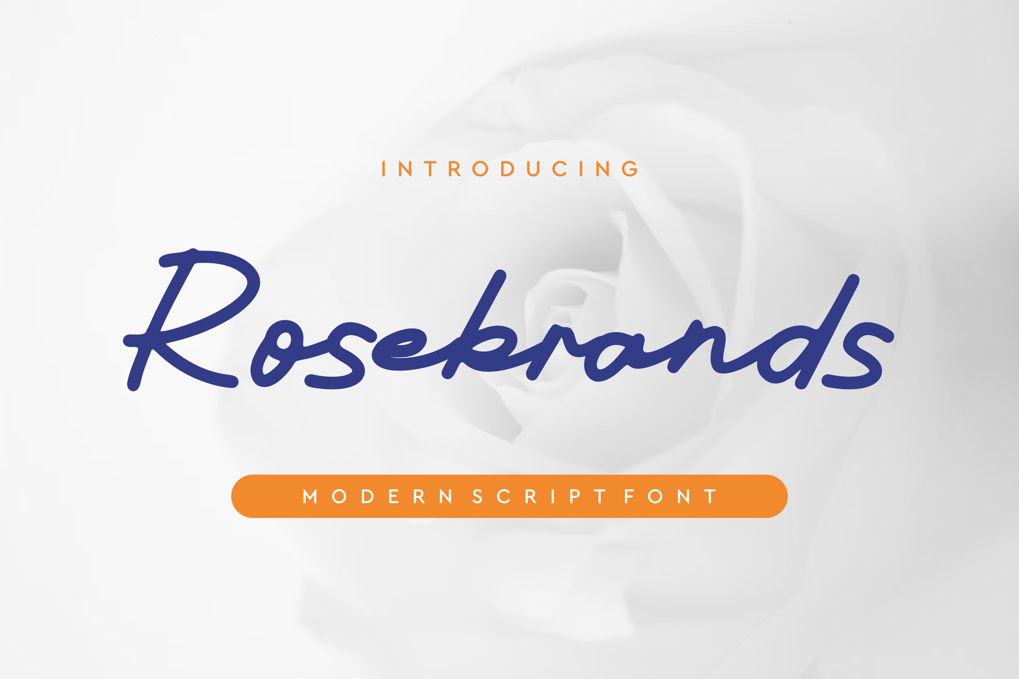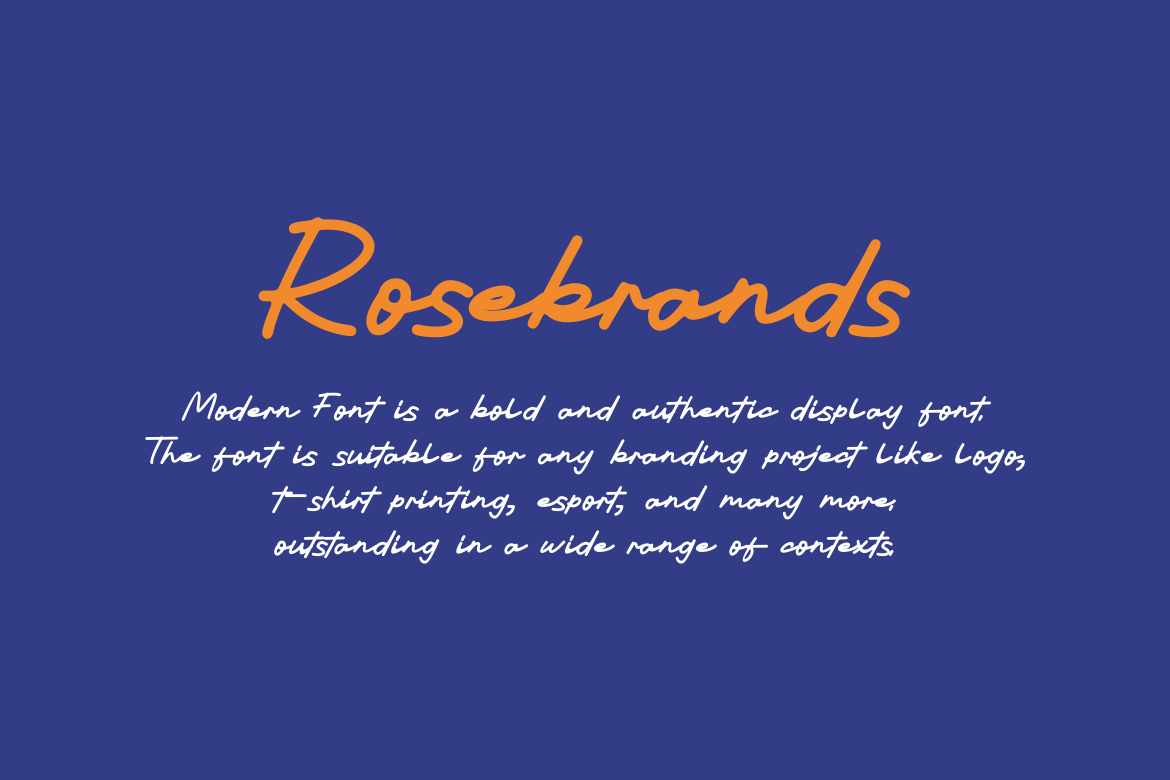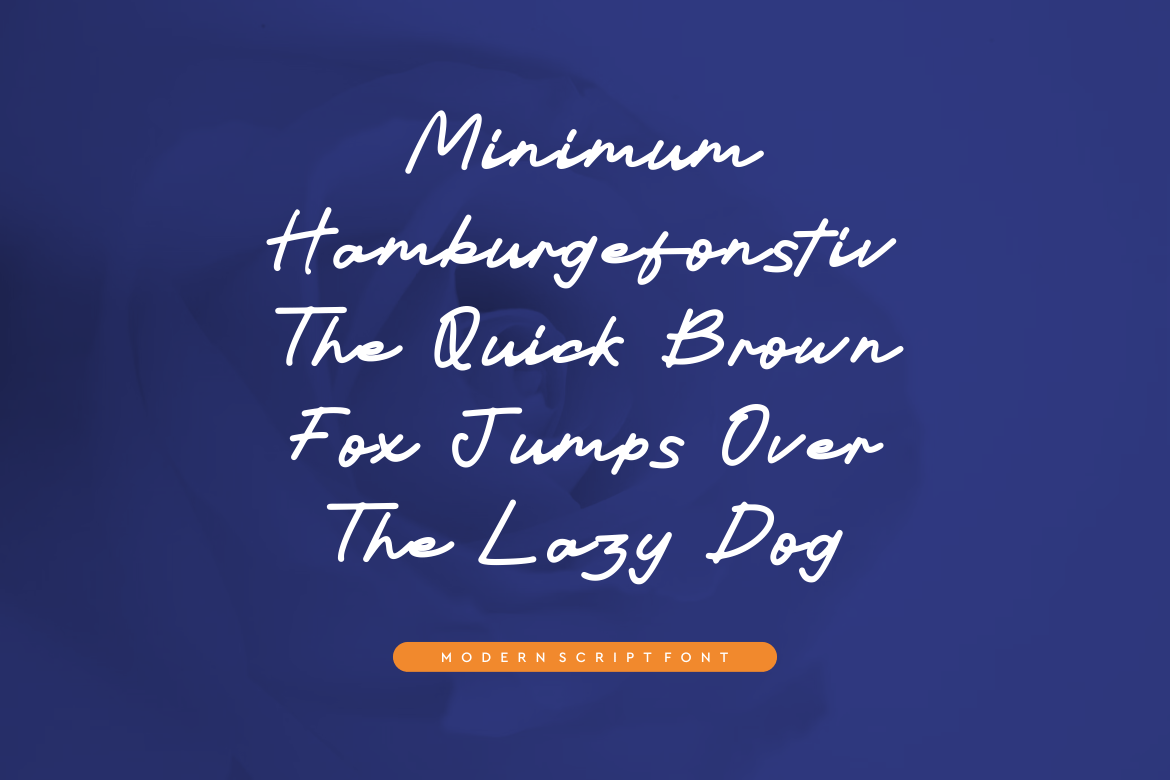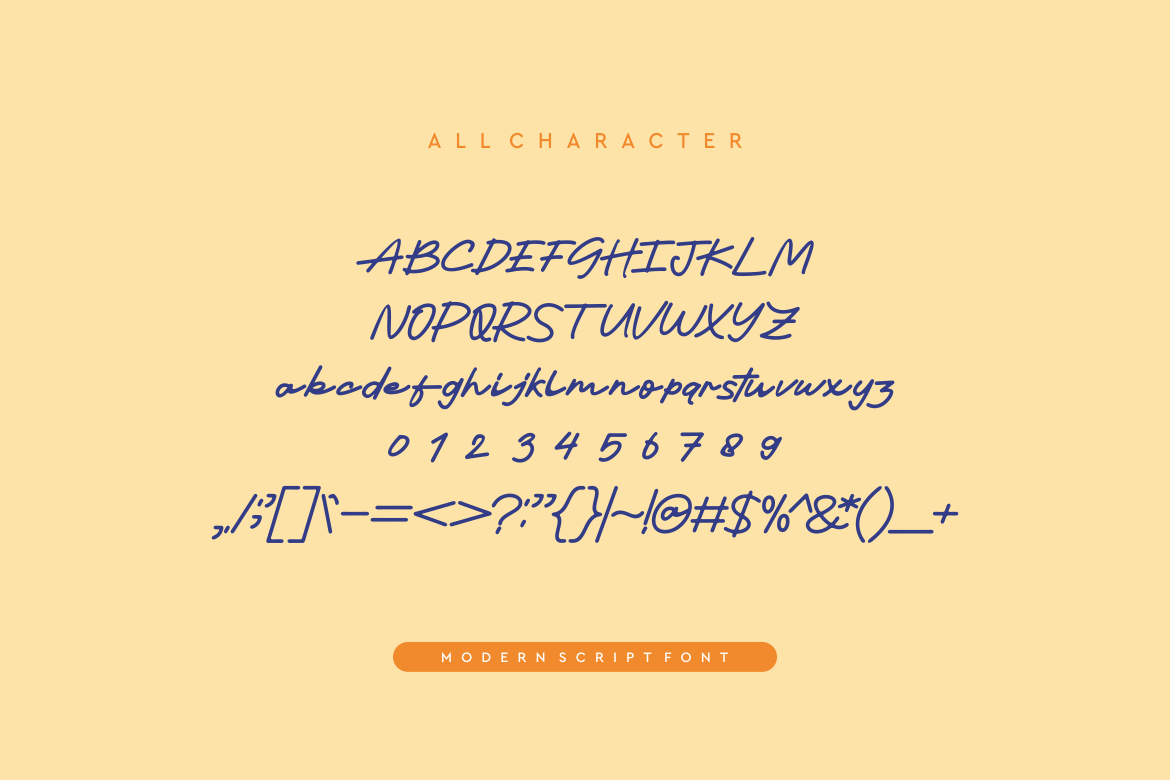
Rosebrands – Modern Script Font
Rosebrands – Modern Script Font is a unique font. Can make it easier to convey the message in your design. Use for awesome display, labeling, clothing, movie sceen, poster, movie title, gigs, album covers, logos, and much more.
* Uppercase & lowercase letters
* Numbers & punctuation